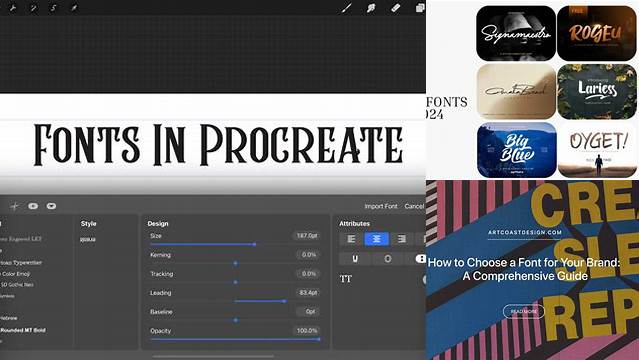
Best Free Fonts For Procreate: A Reddit-Inspired Guide
Hey guys! Are you on the hunt for the perfect free fonts to spice up your Procreate masterpieces? Look no further! In this comprehensive guide, we'll dive deep into the world of free fonts, specifically tailored for Procreate users like you. Whether you're a seasoned digital artist or just starting your Procreate journey, finding the right fonts can significantly elevate your work. Let's explore where to find these gems, how to install them, and even some of my personal favorites. Get ready to transform your text and add that professional touch to your artwork!
Why Fonts Matter in Procreate
Fonts are the unsung heroes of design, often working behind the scenes to convey messages and emotions just as powerfully as the visuals themselves. In Procreate, fonts are not just about adding text, they're about enhancing your overall artistic vision. Think about it: the font you choose can drastically change the mood of your piece. A playful, handwritten font might be perfect for a whimsical illustration, while a bold, sans-serif font could be ideal for a striking poster design. The right font can make your artwork pop, giving it that professional polish and helping it connect with your audience on a deeper level.
Choosing the right font is a crucial step in the design process. It's like selecting the perfect musical score for a film – it sets the tone and enhances the narrative. In Procreate, having a diverse library of fonts at your fingertips allows you to experiment and find the perfect match for each project. And the best part? You don't have to break the bank to build an impressive font collection. There are tons of amazing free fonts out there, just waiting to be discovered. Whether you're working on a logo, a comic book, or a social media graphic, the fonts you use can make or break your design. So, let's dive in and explore the exciting world of free fonts for Procreate!
In the realm of digital art and graphic design, fonts play a pivotal role in shaping the overall aesthetic and communicative impact of your creations. Within Procreate, a powerful and intuitive digital illustration app, the selection of fonts is more than just a stylistic choice; it's a fundamental aspect of visual storytelling. The typography you employ can evoke emotions, convey messages, and ultimately define the tone of your artwork. Imagine crafting a heartfelt greeting card with a delicate script font, or designing a bold poster with a commanding sans-serif typeface – the font choice significantly influences how your work is perceived and interpreted. Therefore, understanding the importance of fonts in Procreate is essential for any artist or designer aiming to create compelling and impactful visuals. The right font not only enhances the visual appeal of your artwork but also helps to communicate your message effectively, ensuring that your artistic vision is fully realized and resonates with your audience.
Top Websites for Free Procreate Fonts
So, where can you find these fantastic free fonts for Procreate? The internet is your oyster, my friends! But to save you time and effort, I've compiled a list of some of the best websites for sourcing high-quality free fonts. These sites offer a treasure trove of options, from elegant scripts to modern sans-serifs, and everything in between. Get ready to bookmark these pages, because you'll be coming back to them again and again!
Google Fonts: Let's start with a classic. Google Fonts is a goldmine of free, open-source fonts that are perfect for Procreate. The best part? They're incredibly easy to access and use. Simply download the font files, install them on your iPad, and you're good to go! Google Fonts offers a vast selection, catering to a wide range of styles and design needs. From the timeless elegance of Open Sans to the quirky charm of Lobster, you're sure to find fonts that perfectly complement your artistic vision. Plus, Google Fonts is constantly updated with new additions, so there's always something fresh to discover. It's a fantastic resource for both beginners and seasoned professionals, offering a reliable and diverse collection of typefaces.
DaFont: Next up, we have DaFont, a veritable playground for font enthusiasts. This website boasts an enormous library of fonts, organized into categories like fancy, cartoon, gothic, and more. While some fonts are free for personal use only, there's still a huge selection of fonts that you can use in your commercial projects. DaFont's interface is user-friendly, making it easy to browse and find exactly what you're looking for. You can even preview the fonts with your own text, ensuring that they're the perfect fit for your artwork. DaFont is a fantastic resource for finding unique and expressive fonts that will set your Procreate creations apart from the crowd. However, it's essential to double-check the licensing terms before using any font for commercial purposes, just to be on the safe side.
Font Squirrel: If you're looking for fonts that are 100% free for commercial use, Font Squirrel is your best friend. This website curates a selection of high-quality, legally-vetted fonts that you can use in any project, without worrying about licensing restrictions. Font Squirrel is a haven for designers who need fonts for branding, marketing materials, or any other commercial application. The website features a clean and intuitive design, making it easy to search and filter fonts based on style, weight, and other criteria. You can also use the Font Identifier tool to find fonts that are similar to a typeface you've seen elsewhere. Font Squirrel is a valuable resource for professional designers and hobbyists alike, offering a reliable source of legally-sound fonts for all your creative endeavors.
Creative Fabrica (Freebies Section): Don't overlook Creative Fabrica's freebies section! While Creative Fabrica is known for its premium fonts and graphics, they also offer a rotating selection of free fonts that are well worth checking out. The quality of these freebies is often exceptional, and you might just stumble upon a hidden gem that becomes your new go-to font. Creative Fabrica's free fonts are typically available for both personal and commercial use, but it's always a good idea to double-check the licensing terms. The freebies section is updated regularly, so it's worth visiting the site frequently to see what's new. This is a great way to expand your font library without spending a dime, and you might even discover some fonts that you wouldn't have found otherwise.
MyFonts (Free Fonts Section): MyFonts, a prominent online font marketplace, also has a dedicated section for free fonts. While their main focus is on premium fonts, the free fonts they offer are often a delightful surprise. These fonts are typically high-quality and come with various licensing options, making them suitable for a range of projects. Browsing the free fonts section on MyFonts can lead you to discover hidden typographic treasures that enhance your Procreate artwork. The collection is diverse, encompassing various styles and classifications, ensuring that you'll find something that aligns perfectly with your creative needs. Checking this resource regularly can add a touch of sophistication to your font library without incurring any costs.